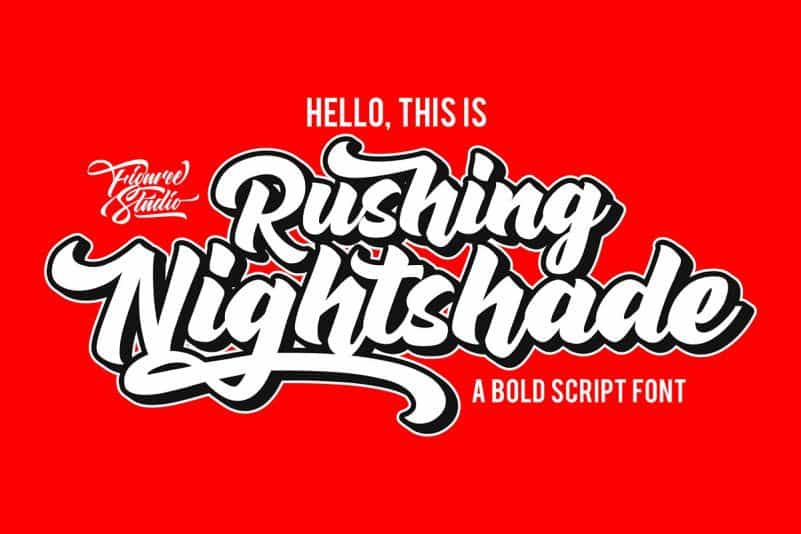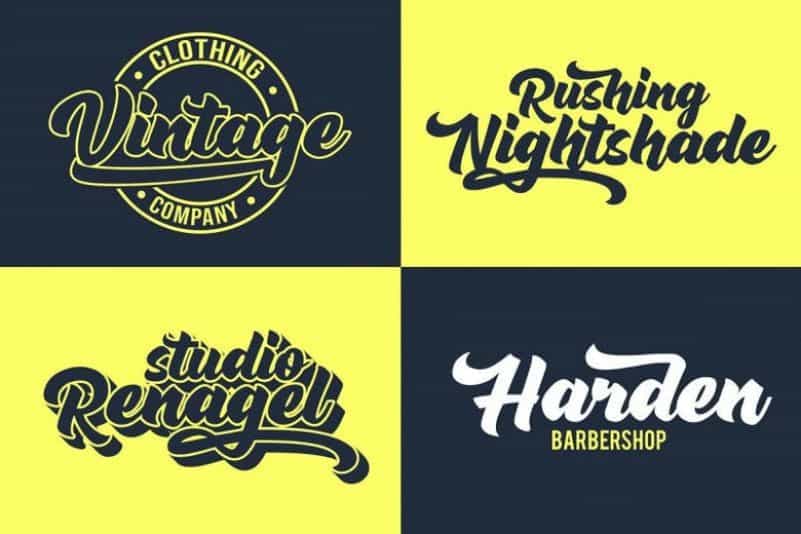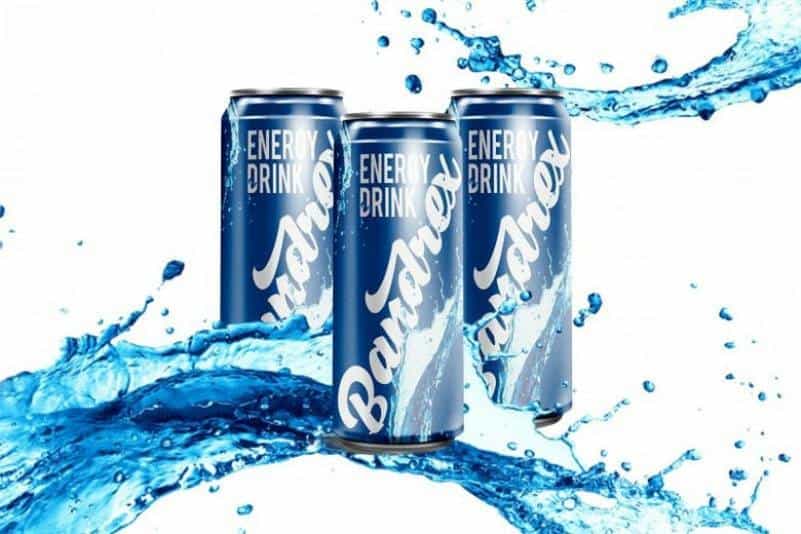
Presenting Rushing Nightshade Font! Designed by figuree studio, it is a natural bold script The inspiration comes from vintage style-typefaces, combining the traditional with new innovations. Created through manual craftsmanship and available in one single aspect, will serve you well next time you’re looking for something that has both implications of antiquity as well as for people looking towards current times for inspiration!